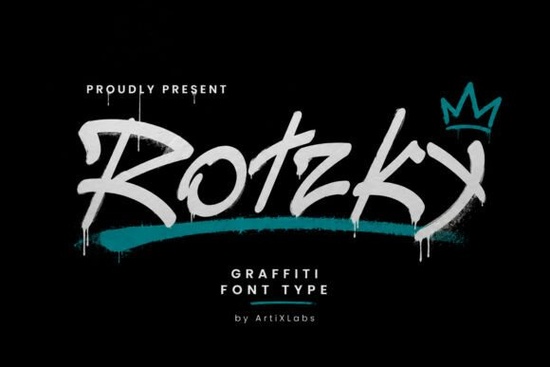
If you're working on a project that needs bold, urban energy think streetwear branding, protest posters, or album covers you’ve probably been searching for a font with real attitude. Rotzky Font delivers exactly that: a graffiti-inspired typeface that feels raw, expressive, and unmistakably modern. It’s not just decorative it’s built to communicate confidence and edge without saying a word.
Designed with spray-paint textures and dynamic letterforms, Rotzky captures the spirit of city walls and underground art scenes. Whether you’re designing merch for a music festival, creating logos for an edgy fashion startup, or adding punch to social media graphics, this font helps your message stand out in a crowded visual landscape.
What kinds of projects work best with Rotzky?
Rotzky thrives where authenticity matters. Its rough edges and energetic strokes make it ideal for:
- Streetwear and urban fashion labels – Use it on T-shirts, hoodies, or tags to echo the vibe of skate culture or hip-hop aesthetics.
- Music-related design – Album art, gig posters, or DJ set flyers benefit from its rebellious tone.
- Activist or community placards – Bold statements need bold typography, and Rotzky gives slogans real presence.
- Mural-inspired digital art – Pair it with grunge textures or concrete backgrounds for immersive cityscape visuals.
Keep in mind: because of its strong personality, Rotzky works best as a display font. It’s not meant for body text or minimalist layouts but when used intentionally, it adds instant character.
How does Rotzky compare to other display fonts?
Not all bold fonts carry the same mood. While Raize Brush leans into hand-painted fluidity and Hello Bold offers clean, geometric impact, Rotzky sits firmly in the realm of urban rebellion. It’s grittier than Aspen, which has a refined sans-serif structure, and more aggressive than the playful curves of Girls Stylish.
If you’ve used Cloak Font before which blends mystery with sharp angles you’ll notice Rotzky trades subtlety for outright expression. It doesn’t whisper; it shouts. That makes it perfect when your message demands attention, not interpretation.
Tips for using Rotzky effectively
To get the most out of this font without overwhelming your design, consider these practical approaches:
- Pair it with neutral elements. Let Rotzky be the star by using simple backgrounds (concrete gray, black, or white) and minimal supporting text in a clean sans-serif.
- Avoid overuse. One or two words in Rotzky often have more impact than full paragraphs. Think logo marks, headlines, or taglines.
- Play with scale. Its detailed strokes hold up well at large sizes ideal for posters, banners, or product packaging.
- Add texture layers. Overlay subtle grunge or paper textures to enhance its street-art feel without competing visually.
Also, check if your version includes alternates or ligatures. Many Creative Fabrica fonts like Rotzky come with bonus glyphs that add extra flair perfect for customizing initials or signature-style logos.